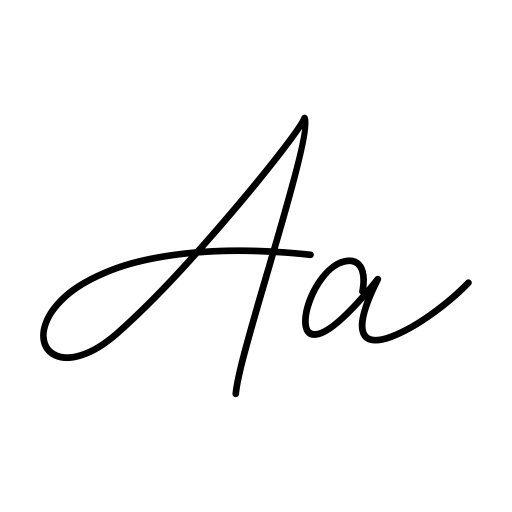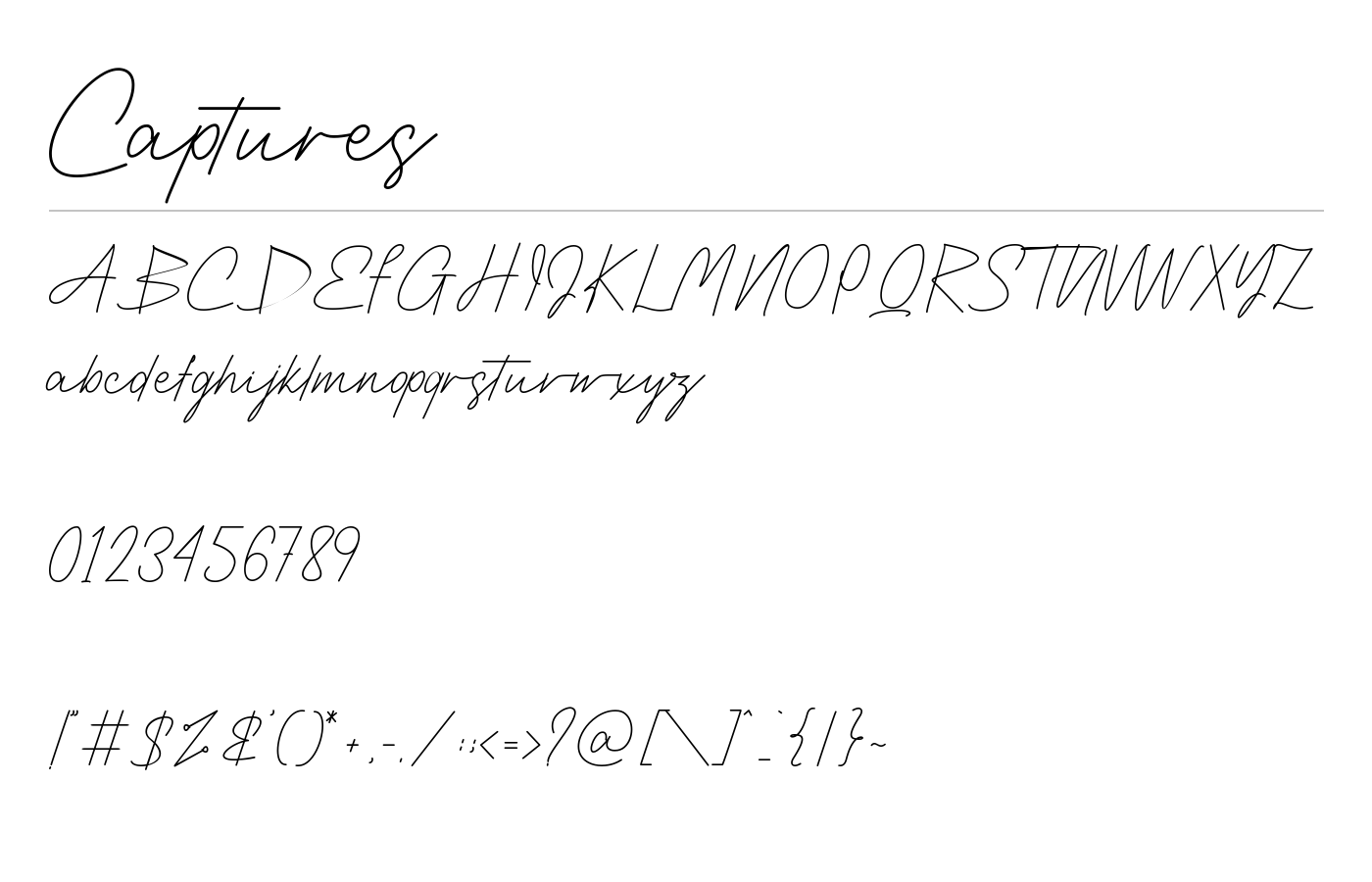
Captures Font is a delicate, handwritten script with thin, flowing strokes that give it an elegant and personal touch. Its light weight and airy spacing make it perfect for adding a sophisticated, intimate feel to invitations, branding, and editorial designs where a subtle, refined signature style is desired. This font works beautifully in contexts that call for a modern yet graceful handwritten appearance.
Captures Font
About Captures Font
| Font family | Captures Font |
| Designer | Muhamad Fikry Nuralif |